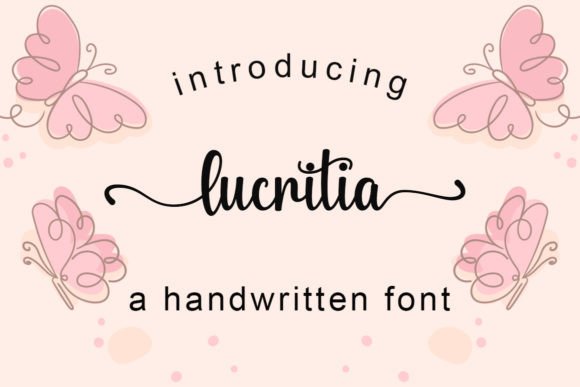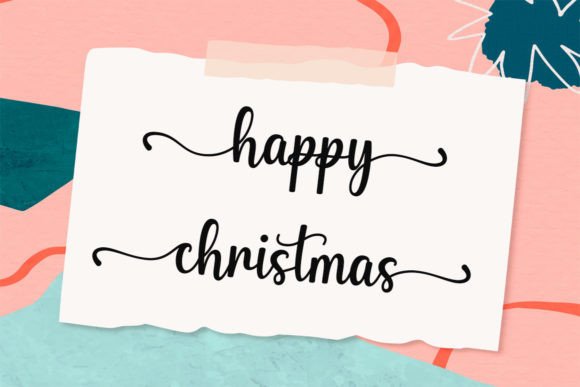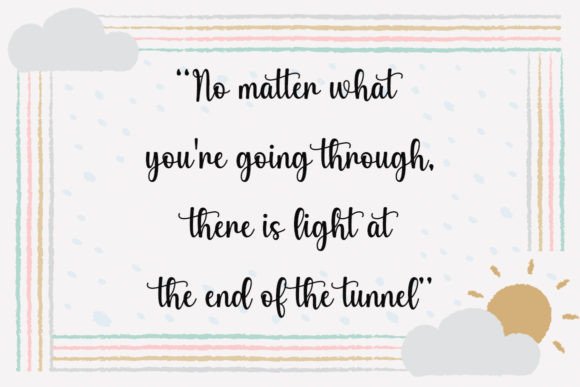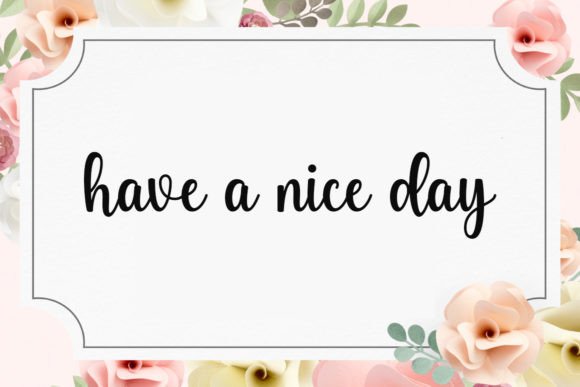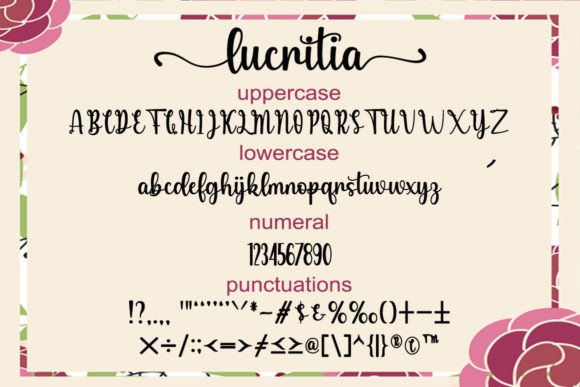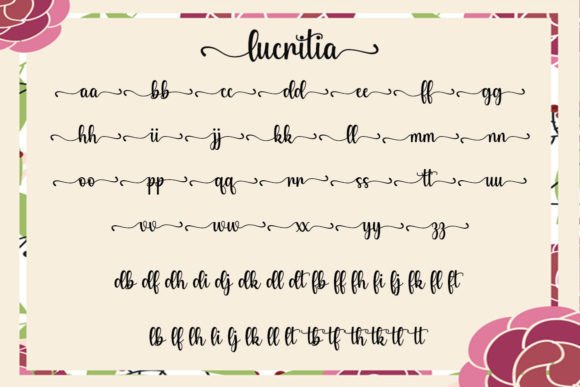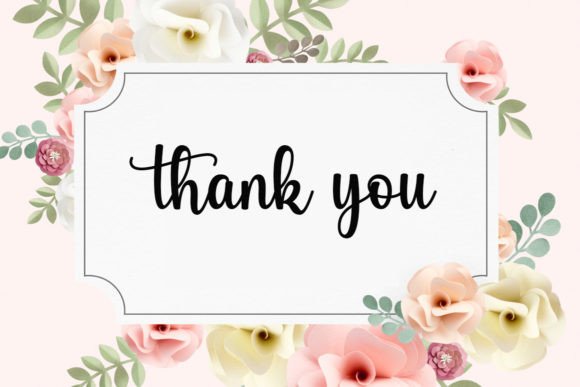
Lucritia Font
Add Magic to Your Designs with Lucritia Script Font
The Lucritia Script Font is an enchanting and elegant handwritten typeface created to enhance any creative project with style and charm. Designed with beautiful curves and graceful strokes, this font is ideal for designers looking to make a bold, feminine, or fashionable statement. From logos to websites, Lucritia adds a personal touch that captivates at first glance.
Perfect for Logos, Quotes, and Stylish Branding
Lucritia is especially suited for logo design, branding projects, inspirational quotes, and fashion-forward print designs. Its flowing script style makes it a favorite for clothing lines, tote bags, business cards, and personal websites.
Additionally, the font’s natural movement and elegant appearance give it wide appeal for wedding stationery, social media templates, and blog headers. If you’re aiming to express creativity, beauty, and authenticity, Lucritia offers all of that—effortlessly.
A Stylish Script with Smooth, Handwritten Charm
What makes the Lucritia Script Font stand out is its gentle, flowing lines and modern calligraphy feel. It captures the essence of handwritten text but adds a polished, professional twist.
Furthermore, Lucritia is PUA encoded, which means all of its beautiful ligatures, alternate glyphs, and swashes are fully accessible without any special design software. This feature gives you greater flexibility and control over your typography.
Works Seamlessly in Both Print and Digital Projects
Whether you’re designing for the web or for physical products, Lucritia is highly adaptable. It maintains legibility across sizes, making it ideal for both headline text and accent elements.
From Instagram quotes to eCommerce branding, custom merchandise, and packaging, this font performs beautifully. Pair it with clean serif or sans-serif fonts for a balanced, high-impact layout that feels contemporary and elegant.
Why Choose Lucritia Script Font?
Here’s why Lucritia deserves a place in your font collection:
• Elegant and enchanting handwritten style
• Ideal for logos, fashion branding, quotes, and packaging
• PUA encoded for easy access to swashes and ligatures
• Works well in both print and digital formats
• Adds feminine flair, sophistication, and creativity to your designs
Let Lucritia Elevate Your Typography
In conclusion, the Lucritia Script Font is a charming and expressive typeface that helps your designs stand out with style. Whether you’re building a brand, designing a product label, or sharing an inspirational message, Lucritia adds elegance, creativity, and emotion.
Let this stylish script font transform your next project into something truly memorable. With its flowing curves and graceful personality, Lucritia is ready to take your typography to the highest level.